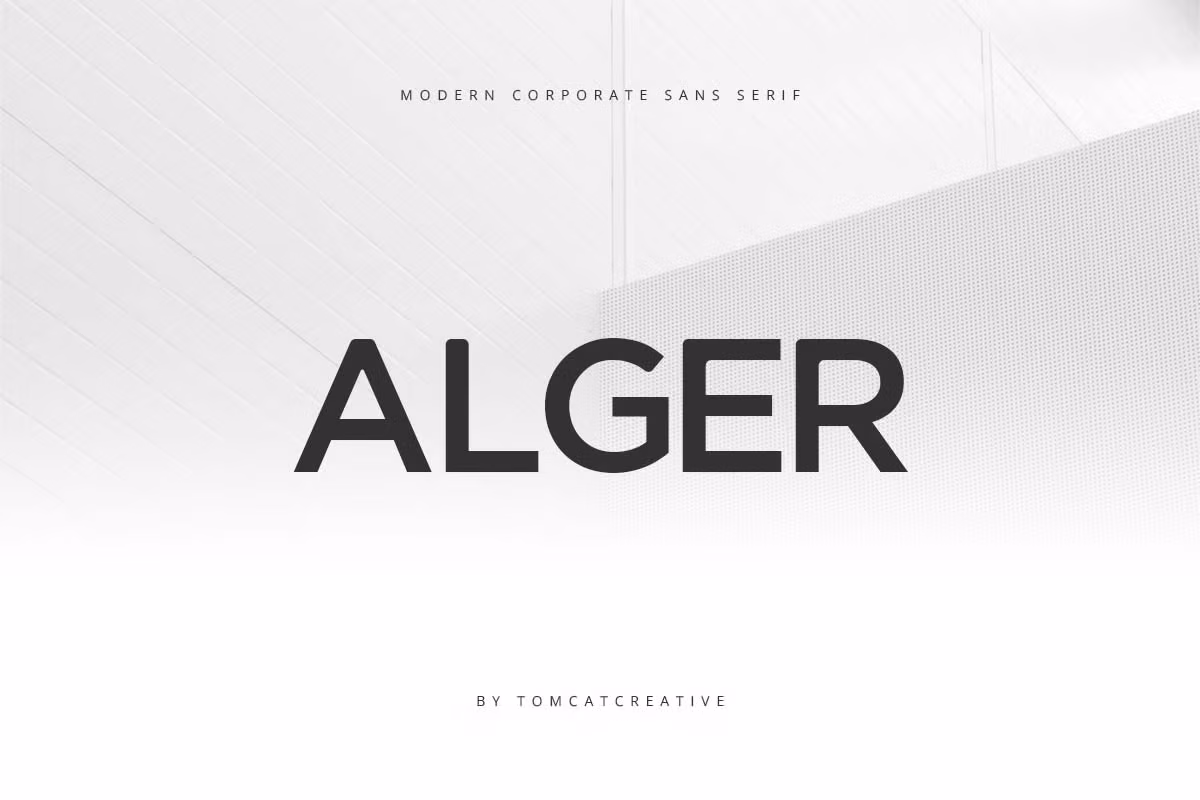
Alger Modern Corporate Sans Serif Free Download
This modern and elegant font, Alger Modern Corporate Sans Serif Font Free Download, is perfect for your next design project. With its clean lines and sleek design, it enhances readability and adds a professional touch to any digital or print material. Whether you're working on branding, logos, or website design, this versatile font makes a great addition to your font collection.
Alger Modern Corporate Sans Serif Font Free Download is ideal for designers looking for a contemporary sans serif option that can be used in a variety of creative projects. Enjoy the simplicity and modernity this font brings to your designs. Download it today and start creating beautiful, professional content!